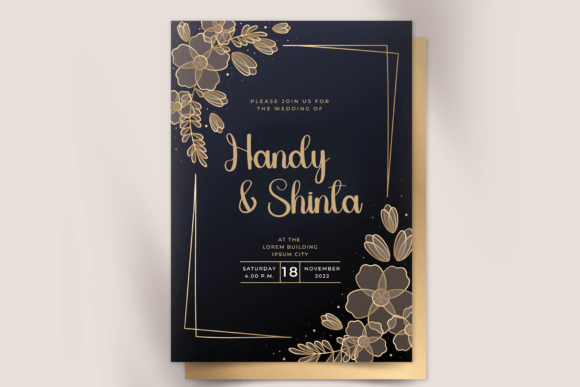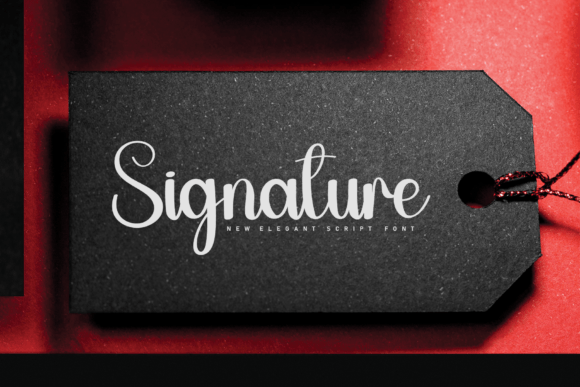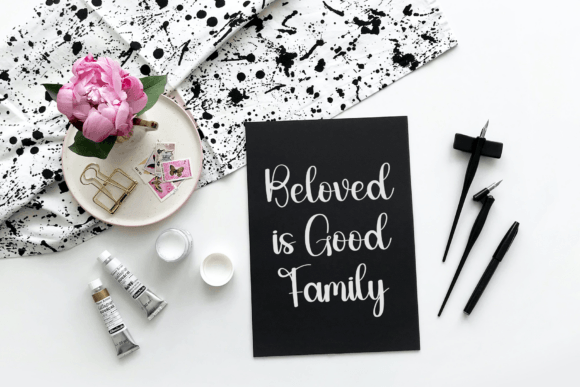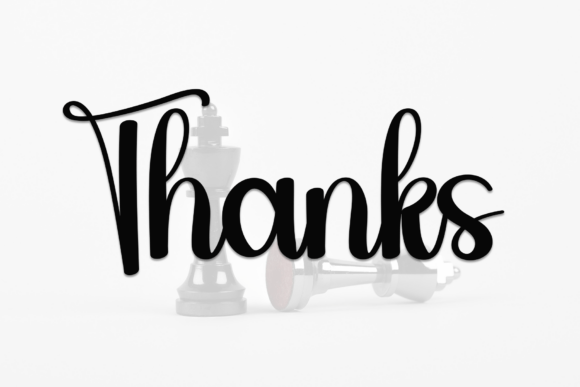
Introducing Bigstore Font: The Ultimate Handwritten Marker Font for Luxurious and Elegant Designs
In the world of typography, fonts play a crucial role in defining the aesthetic and tone of a design. For designers and crafters looking for a font that exudes a sense of luxury, elegance, and casualness, Bigstore Font is an excellent choice. This handwritten font, designed to mimic the look of a marker, offers a unique blend of relaxation and sportiness, making it perfect for a wide range of applications.
What is Bigstore Font?
Bigstore Font is a carefully crafted handwritten font that bears the charm of being drawn with a marker. Its relaxed and sporty feel sets it apart from traditional fonts, offering a fresh and modern approach to typography. The font’s design is characterized by its smooth, flowing lines and a distinct lack of rigidity, giving it a friendly and approachable vibe.
Key Features of Bigstore Font
- Handwritten with a Marker Feel: The font’s unique characteristic is its handwritten style, which closely resembles writing with a marker. This gives it a personal and informal touch.
- Relaxed and Sporty: Bigstore Font embodies a laid-back yet sporty aesthetic, making it versatile for various design projects.
- Luxurious and Elegant: Despite its casual feel, the font maintains an air of luxury and elegance, suitable for high-end branding and designs.
- Casual and Friendly: The font’s friendly demeanor makes it perfect for designs that aim to connect with the audience on a personal level.
Use Cases for Bigstore Font
Bigstore Font’s versatility is one of its strongest selling points. Here are some of the best use cases for this unique font:
- Branding and Logos: Create a memorable brand identity with a logo that stands out. Bigstore Font’s unique marker feel can give your brand a distinctive edge.
- Wedding Supplies and Invitations: Add a personal touch to wedding invitations, programs, and other supplies with this elegant yet casual font.
- Greeting Cards: Whether it’s a birthday, anniversary, or a simple hello, Bigstore Font can add a warm and personal feel to your greeting cards.
- Fashion and Lookbooks: For fashion designers and brands, this font can add a luxurious yet approachable feel to lookbooks, fashion magazines, and marketing materials.
- Marketing Promotions: Use Bigstore Font in your marketing materials to give them a friendly, yet high-end feel that captures the audience’s attention.
Why Choose Bigstore Font?
In a sea of fonts, Bigstore Font stands out for its unique blend of casualness and sophistication. Here are a few reasons why designers and crafters should consider it for their projects:
- Unique Aesthetic: Offers a fresh alternative to traditional fonts with its marker-drawn feel.
- Versatility: Suitable for a wide range of projects, from luxury branding to casual greeting cards.
- Ease of Use: Designed to be user-friendly, making it easy to incorporate into various design software.
- Customization: Allows for a high degree of customization to fit the specific needs of your project.
Bigstore Font is a remarkable addition to the world of typography, offering a unique blend of luxury, elegance, and casualness. Its marker-drawn feel and sporty yet relaxed aesthetic make it an excellent choice for designers and crafters looking to add a personal touch to their projects. Whether you’re working on branding, wedding supplies, greeting cards, or fashion lookbooks, Bigstore Font is sure to elevate your designs to the next level.
Incorporating Bigstore Font into your design toolkit can open up new possibilities for creativity and expression. Its versatility and unique charm make it a valuable asset for anyone looking to create designs that stand out and connect with their audience on a personal level.